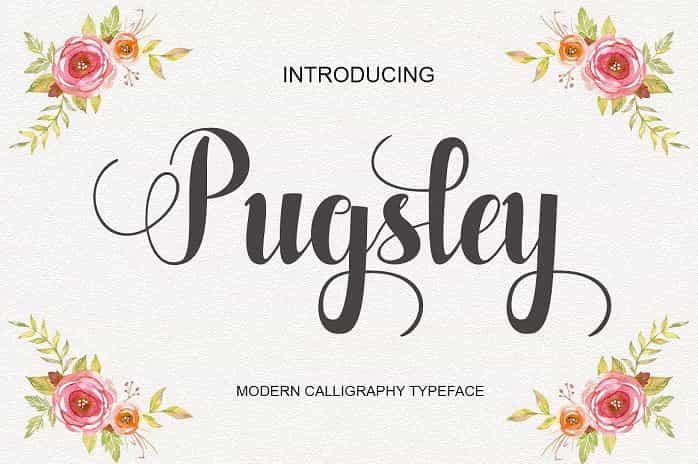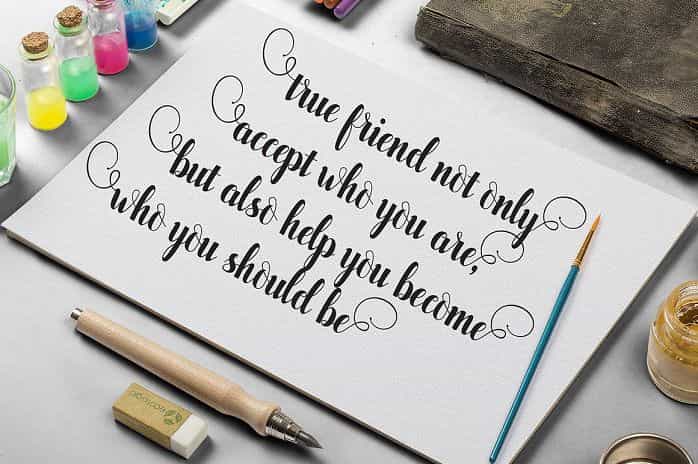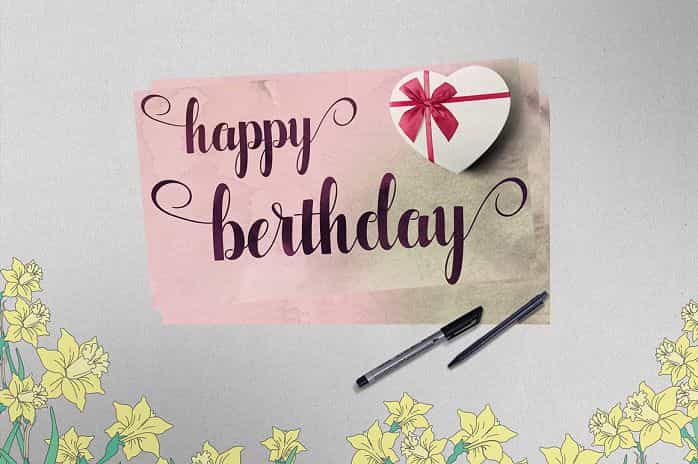
Introducing Pugsley Font. Pugsley Modern Calligraphy. This font was created by handcrafting, and it has the modern and unique forms of calligraphy that are very natural in writing style. Can be applied for different tasks. namely headings, logos, wedding invitations, t-shirts,d letterheads , signages, labels, newses, posters and badges etc.